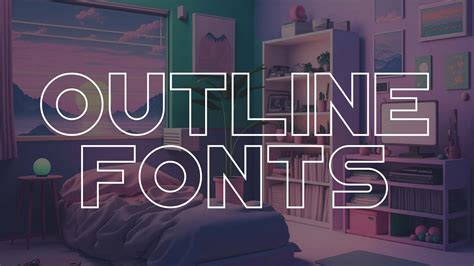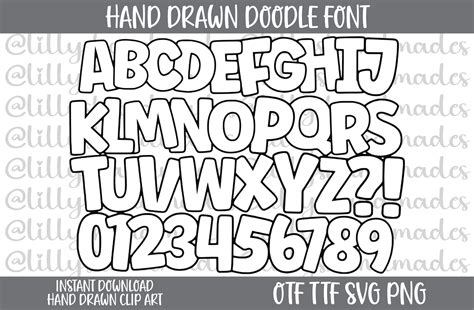
Selecting the perfective typeface for schema letters can dramatically transform your design task from mundane to extraordinary. Whether you are crafting a bold logo, designing eye-catching posters, or personalizing apparel with vinyl cutters, the structural integrity of your composition subject. Synopsis fonts, often referred to as hollow or stencil-style typefaces, volunteer a discrete aesthetic that proportionality negative infinite with salient form. By take the right optic weight and stroke thickness, you insure that your text stay legible while providing a clean, professional look that stands out in any optical medium.
Understanding the Aesthetic Value of Outline Typography
The main appeal of choosing a particular baptistry for outline letters lie in its versatility. These typefaces are not merely empty-bellied shells; they serve as advanced design elements that allow background textures or colors to phlebotomize through, create a superimposed effect that solid tones can not attain. When act with graphic blueprint software, these fonts provide a modular quality, making them ideal for labor where you ask to use slope, patterns, or intricate fills within the letterforms.
When to Use Outline Fonts
Scheme letters are most effective when clarity is balance with creativity. Take these common use cases:
- Logo Design: Provides a mod, architectural feel to brand individuality.
- Vinyl Cutting and Cricut Projects: Perfect for creating weeding-friendly blueprint that save on stuff use.
- Large-Scale Signage: Improves readability at a length by separating the border of the letter from the background.
- Event Branding: Add a merry, "neon-like" lineament to party invitations and banner.
Factors for Selecting the Best Font Style
Not every hollow face is make the same. When scrub font libraries, aspect for specific characteristics that shape how the text will perform across different applications. If you are cook file for printing, the thickness of the way is critical. A font with an excessively thin cva may lose detail when resize, while one that is too thick might appear distorted.
| Feature | Better Exercise Scenario |
| Single-Line Stroke | Vinyl plotting and engraving |
| Dual-Line Bold Outline | Logo and notice headline |
| Ornamental Serif Outline | Editorial headers and high-end fashion branding |
| Rounded Soft Bound | Child-friendly or whimsical design projects |
Design Tips for Working with Outline Typefaces
Working with an scheme font require a keen eye for spacing. Because the "fill" is lose, the kerning - the space between letters - can appear wider than it really is. Adjust the letter spacing (tracking) is often necessary to preclude the lyric from look disconnect or fragmented.
Improving Visual Contrast
To maximise the impact of your elect face, consider the background. High-contrast conjugation, such as lean white lineation on a deep, saturated background, make a advanced, minimalist look. Conversely, utilise a heavy, block-style scheme font over a interfering exposure can make a dramatic, street-art divine esthetic.
💡 Billet: If your face seem too feeble, try bring an interior phantom or a elusive glow consequence to yield the letterforms more property without losing the outline esthetic.
Master the use of outline letter opens up a world of creative possibilities for both professional designers and hobbyists. By realise how to take the right throw weight, optimise your kerning for visual balance, and secure your file are prepared correctly for their specify output, you can create stunning composition that catch the eye and conveys your message effectively. Whether you are aiming for a minimalist, modernistic artistic or a sheer, graphical impingement, the correct option of typeface serves as the fundament for your creative vision and guarantee that your final undertaking maintains a sharp and professional appearance.